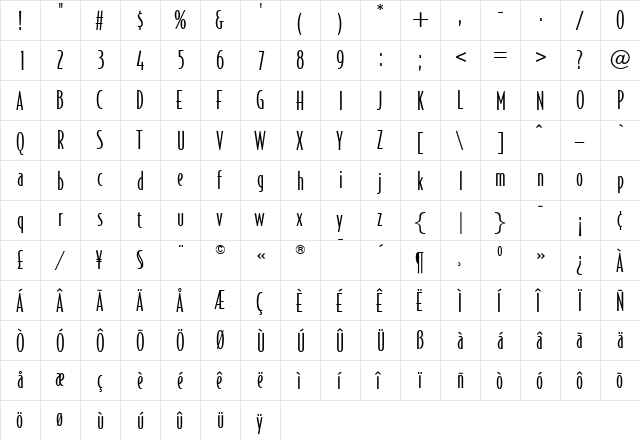
OPTIJake Medium
Design Context for OPTIJake Typeface
OPTIJake takes a measured approach to typography — its balanced proportions and neutral character make it a reliable workhorse for both digital and print work.